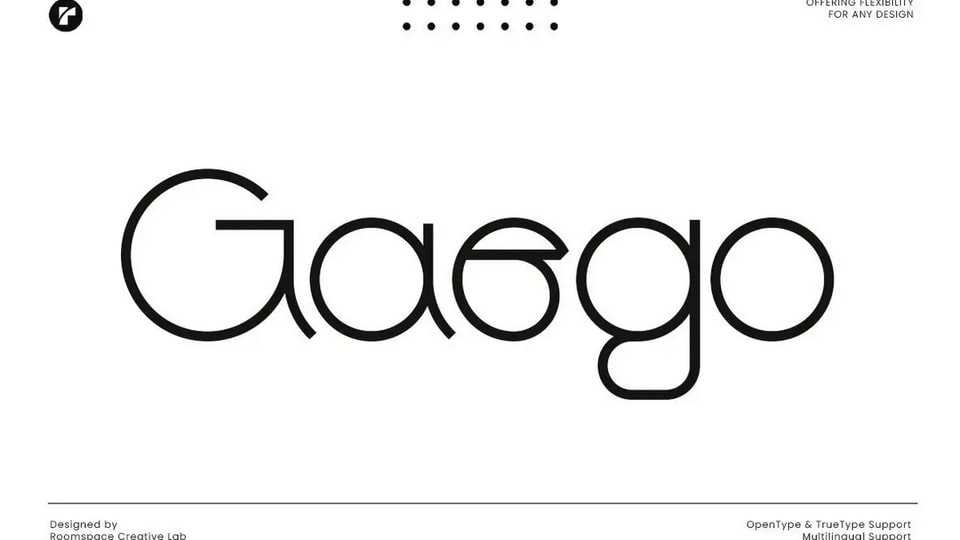
Download Gaego font, a modern and clean sans serif typeface. Elevate your designs with Gaego, a modern sans serif font crafted for those seeking a clean and minimalistic typeface.